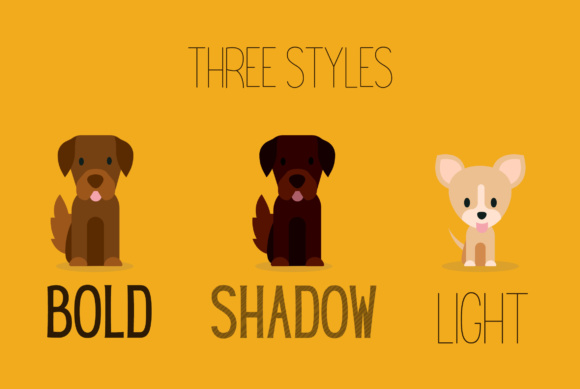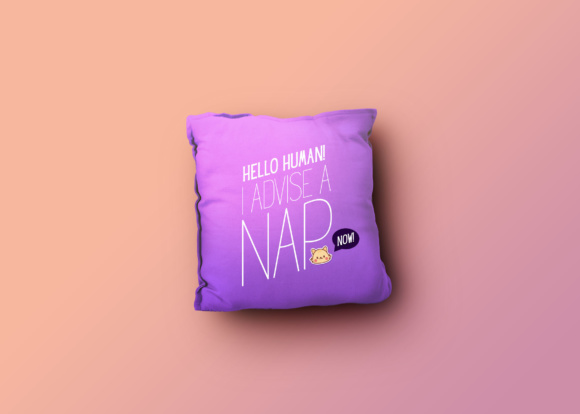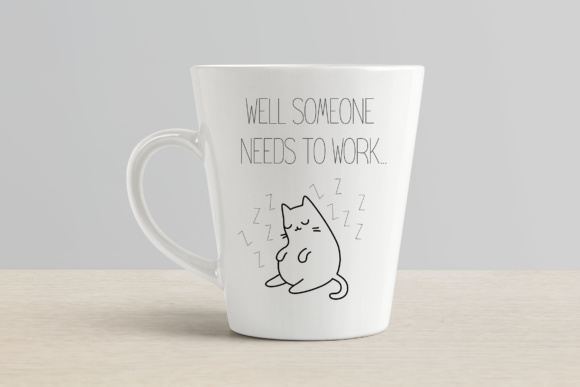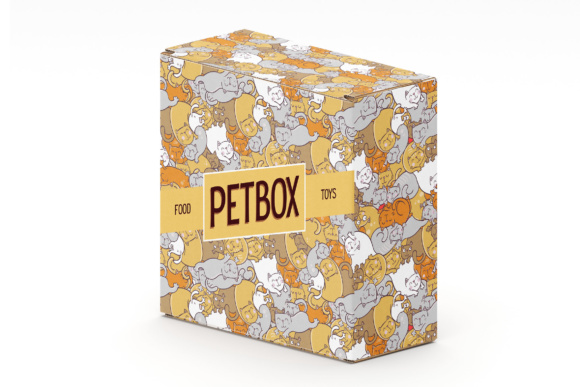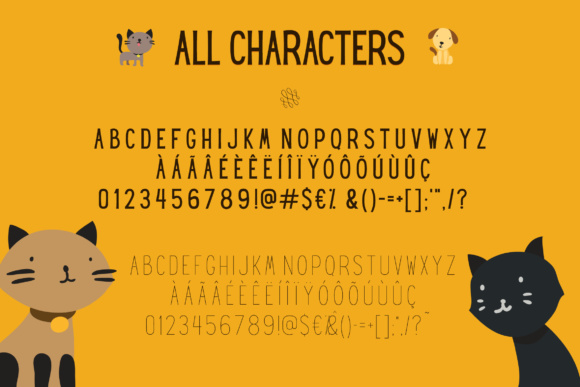
Introduction to Hey Gotcha! Font
Hey Gotcha.
is a fun and playful font which comes in bold, thin and with a shadow layer Great for creating a handmade lettering look for kids and children designs.
Hey Gotcha! Font offers exceptional quality and versatility, making it a valuable addition to your design toolkit. Whether you’re creating for personal projects or commercial use, Hey Gotcha! Font delivers professional results.